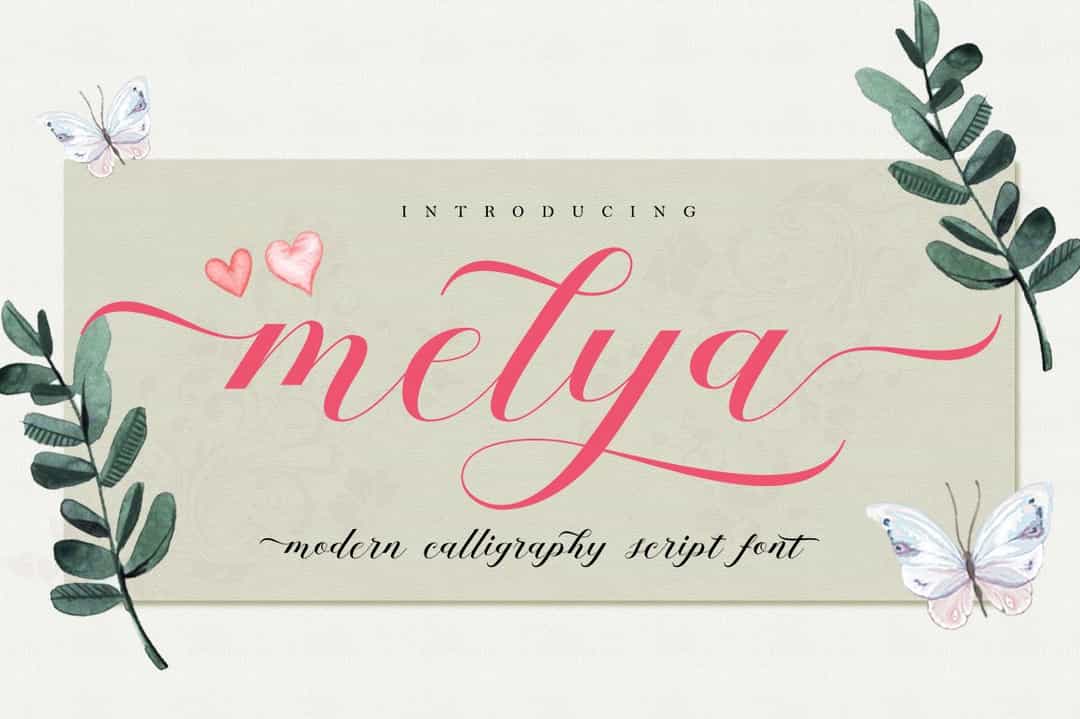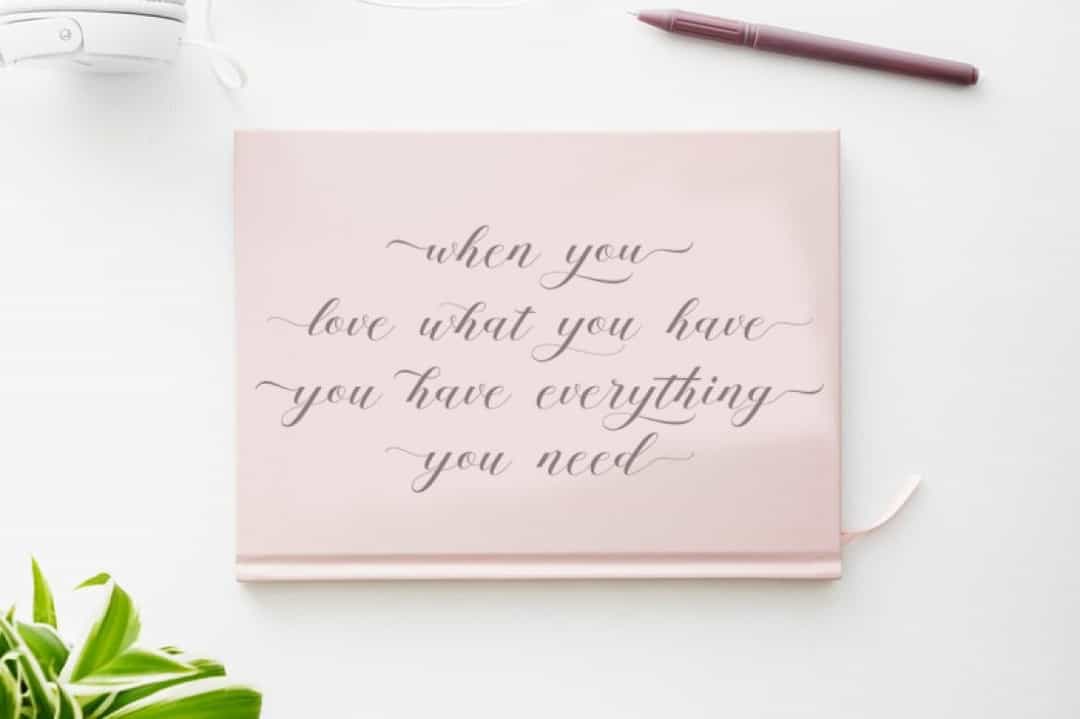
Discover Melya Font, part of the Calligraphy collection—a versatile and unique font perfect for adding a personal touch to your projects. Download it for free and enjoy crafting designs with style, from invitations to social media posts. This font is available exclusively for personal use, giving you the freedom to create without limits. Unlock your creativity with Melya Font today!
Melya Calligraphy font features contemporary hand scratches. I know you will be intrigued by its contemporary styles; should you decide to use it for any work projects, it can easily and quickly be implemented due to its variety of features such as lowercase letters with various punctuation styles and numbers as well as multilingual support.